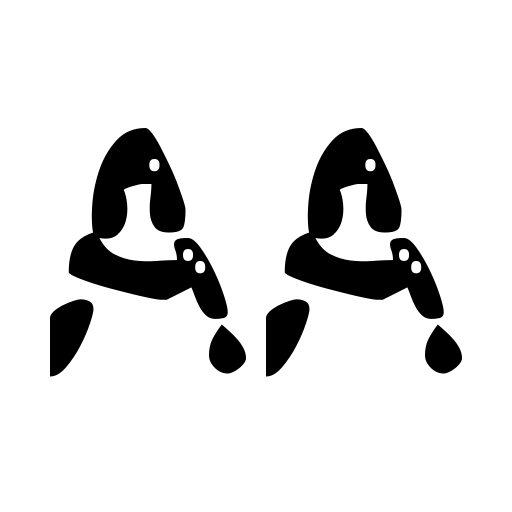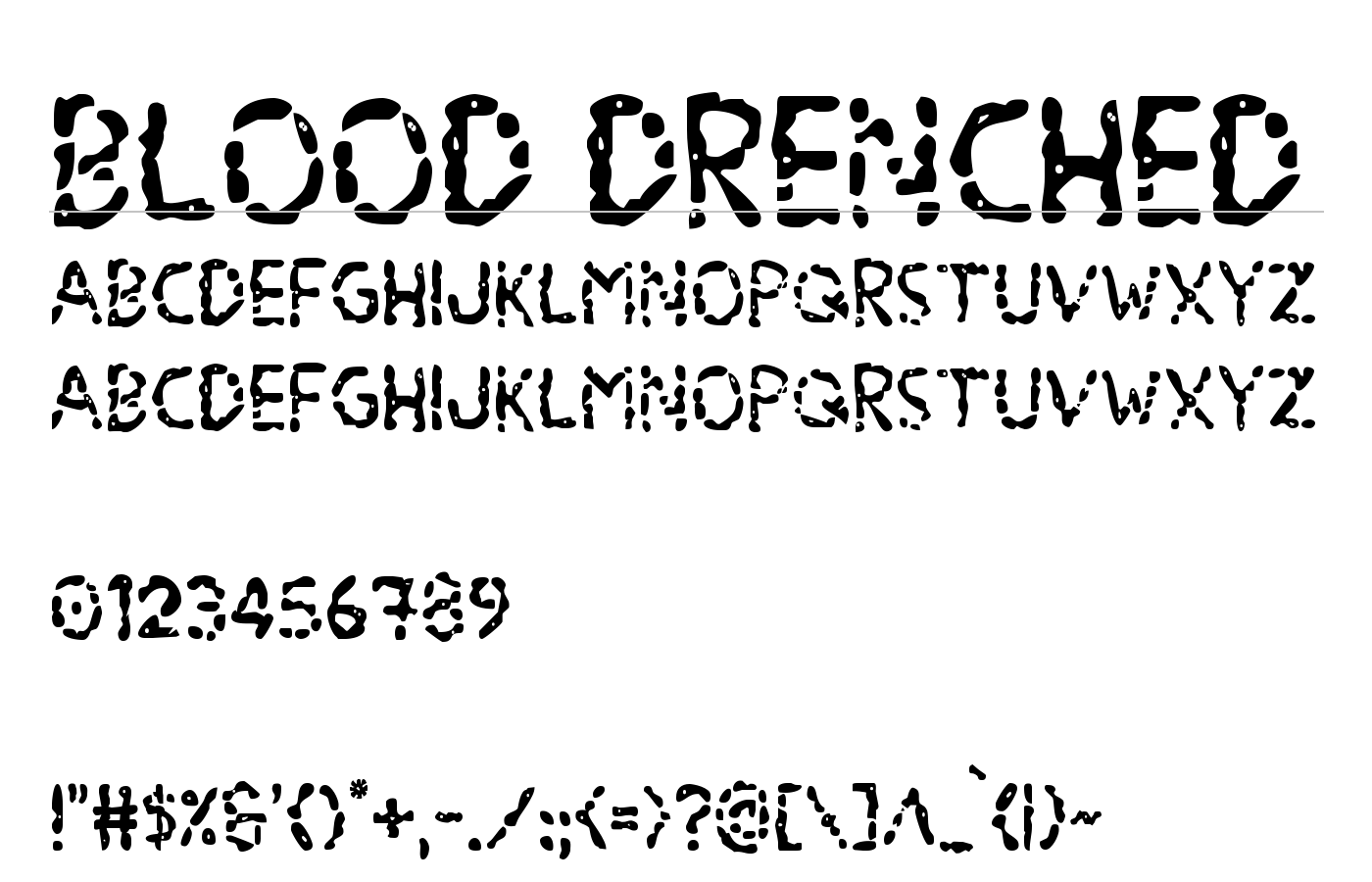
Blood Drenched is a bold, decorative font with an irregular, dripping texture that evokes a spooky and eerie atmosphere. Its all-caps, heavy weight and rough, organic shapes make it ideal for horror-themed designs, Halloween events, and eye-catching headlines where a chilling, distressed look is desired. This font’s unique style captures attention and adds a playful yet sinister vibe to creative projects seeking a dramatic impact.
Blood Drenched Font
About Blood Drenched Font